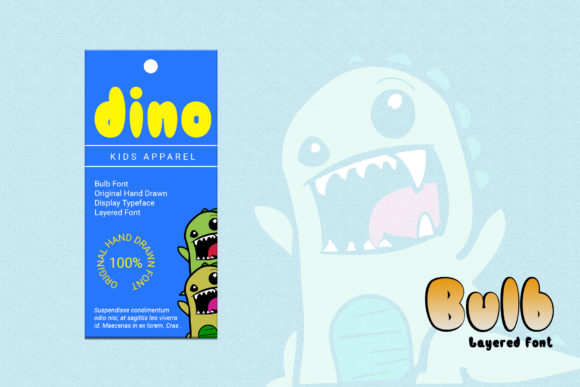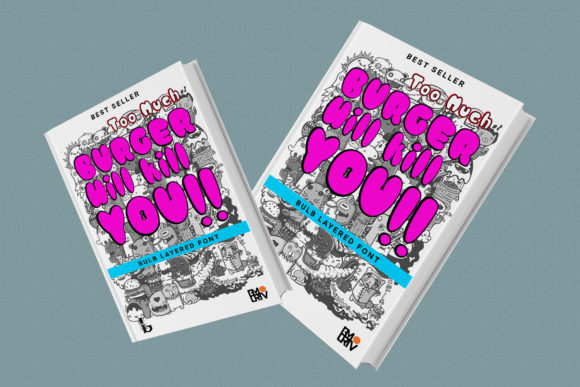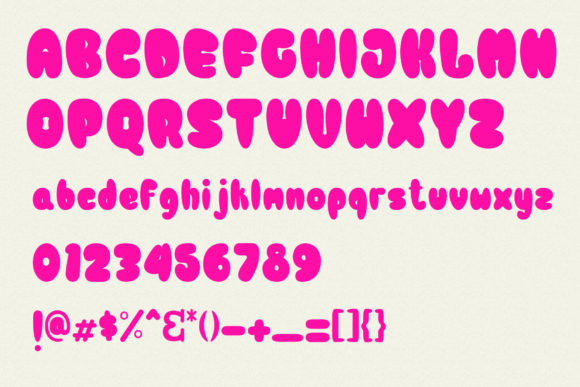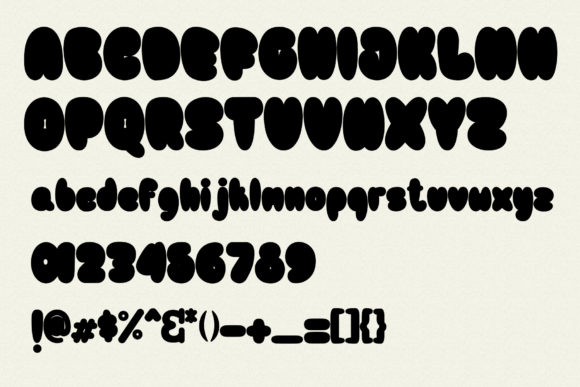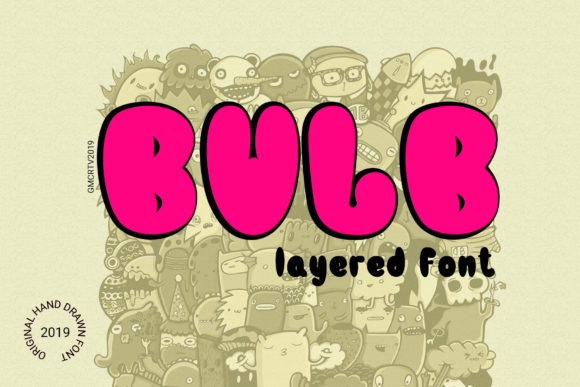
Bulb Layered Font: A Whimsical Typeface Inspired by Vintage Children’s Book Covers
In the world of typography, few fonts capture the essence of childhood wonder and magic as beautifully as Bulb Layered. Inspired by vintage children’s book covers, this decorative font is a delightful addition to any design project that requires a touch of whimsy and playfulness. In this article, we’ll explore the unique characteristics of Bulb Layered, its design inspiration, and how it can be used to add a touch of nostalgia and charm to your designs.
The Inspiration Behind Bulb Layered
Bulb Layered is a font that pays homage to the classic children’s book covers of yesteryear. The font’s creator drew inspiration from the colorful, playful, and imaginative illustrations that adorned the covers of beloved children’s books from the early 20th century. The result is a font that exudes a sense of nostalgia and wonder, perfect for designers and crafters looking to add a touch of vintage charm to their work.
Design Characteristics of Bulb Layered
Bulb Layered is a decorative font with a unique touch. Its design characteristics include:
• Layered design: Bulb Layered features a layered design, with each letter consisting of multiple layers that can be stacked to create a unique, dimensional effect.
• Hand-drawn feel: The font has a distinctly hand-drawn feel, with each letter and numeral carefully crafted to resemble the illustrations found in vintage children’s book covers.
• Playful and whimsical: Bulb Layered is a playful and whimsical font, perfect for designs that require a touch of fun and imagination.
• Multilingual support: The font includes support for multiple languages, making it a versatile choice for designers working on international projects.
Using Bulb Layered in Your Designs
Bulb Layered is a versatile font that can be used in a variety of design projects, including:
• Children’s book illustrations: Bulb Layered is a natural fit for children’s book illustrations, where its playful and whimsical design can help bring stories to life.
• Stationery and greeting cards: The font’s vintage charm makes it a great choice for stationery and greeting cards, where it can add a touch of nostalgia and elegance.
• Branding and packaging: Bulb Layered can be used to create eye-catching branding and packaging designs that stand out on store shelves.
• Crafting and DIY projects: The font’s playful design makes it a great choice for crafting and DIY projects, such as scrapbooking, journaling, and papercrafting.
Tips for Getting the Most Out of Bulb Layered
To get the most out of Bulb Layered, try the following tips:
• Experiment with layering: Don’t be afraid to experiment with the font’s layered design, stacking letters and adjusting opacity to create unique effects.
• Pair with complementary fonts: Bulb Layered pairs well with clean, sans-serif fonts that can help provide contrast and balance out the design.
• Use in combination with illustrations: The font’s hand-drawn feel makes it a great match for illustrations and other hand-drawn elements.
Bulb Layered is a unique and charming font that is sure to delight designers and crafters looking for a touch of vintage whimsy in their work. With its layered design, hand-drawn feel, and playful personality, this font is perfect for a wide range of design projects, from children’s book illustrations to branding and packaging. Whether you’re looking to add a touch of nostalgia or simply want to create a design that stands out, Bulb Layered is a great choice.